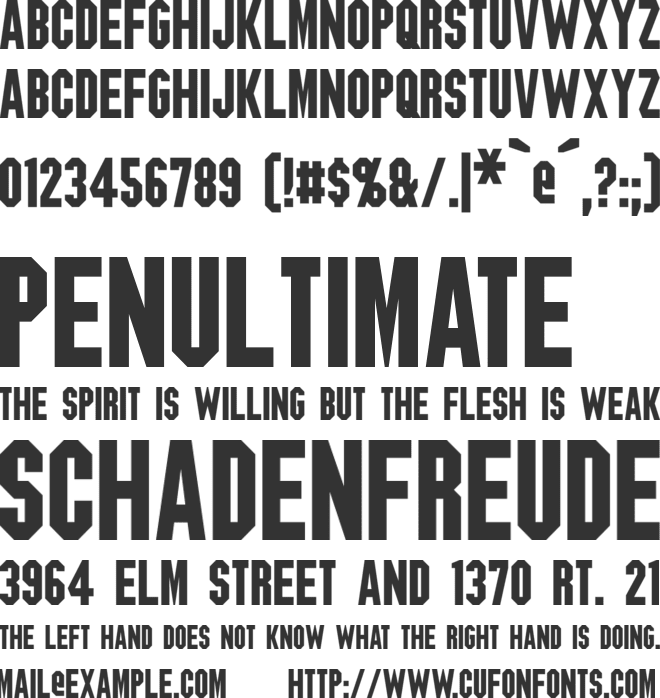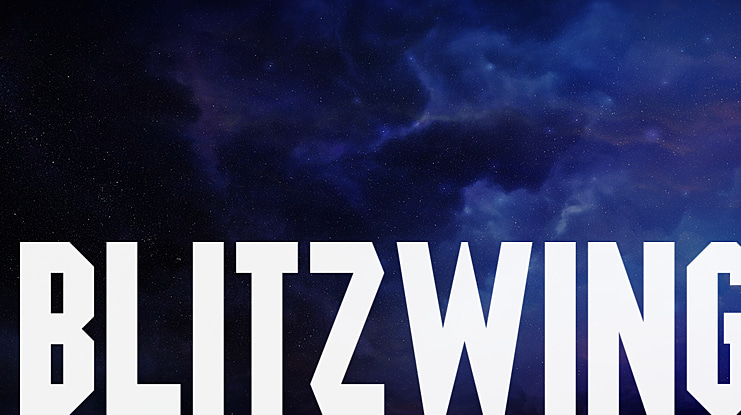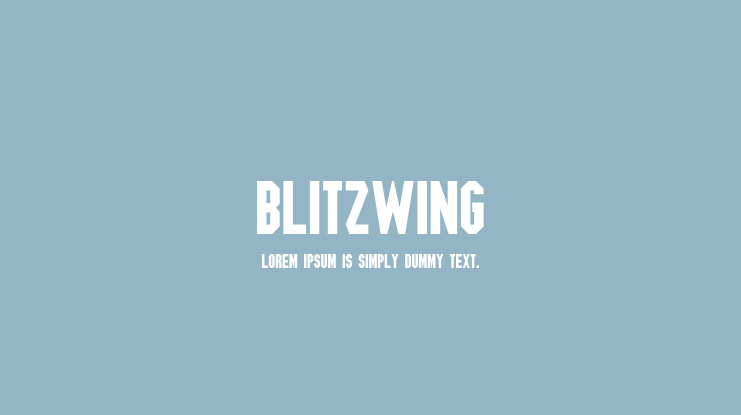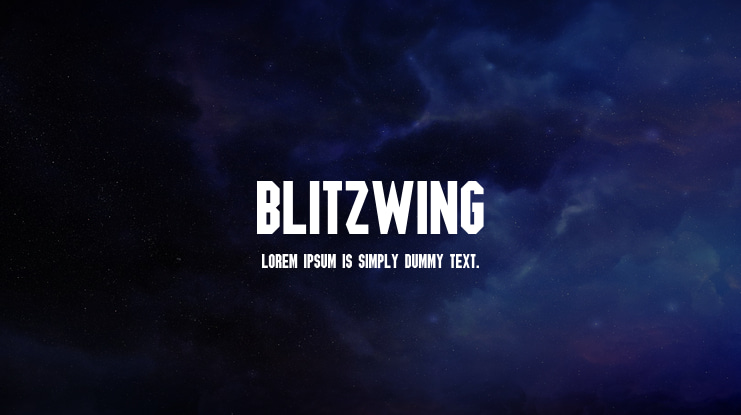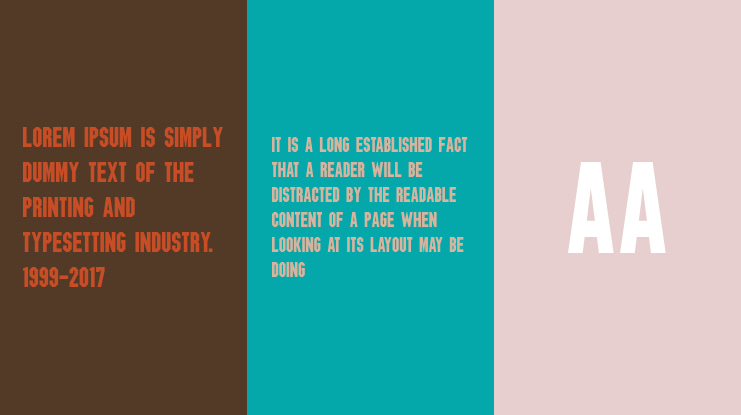
Blitzwing Font Family
Blitzwing is a simple, military-style font based loosely on the packaging of Hasbro’s Contruct-A-Bots line. Includes full alphabet, numerals, extended punctuation and Euro. Includes bold, italic, and bold-italic styles, along with expanded weights.